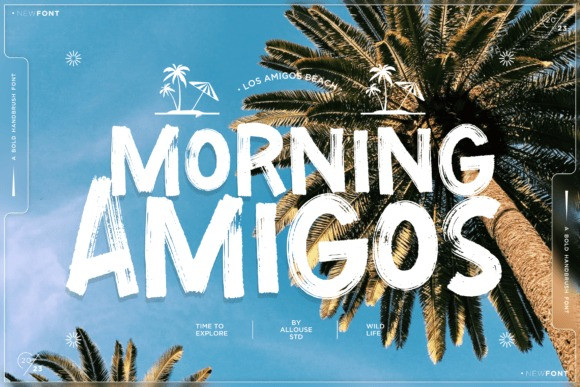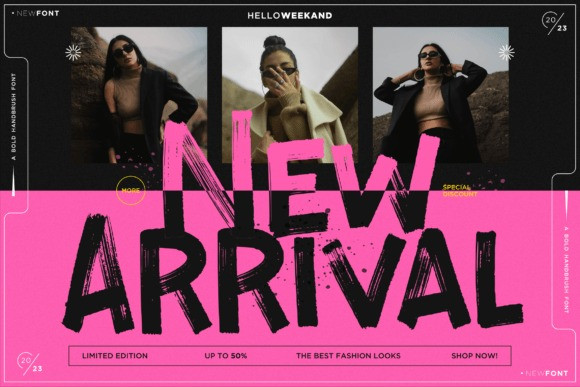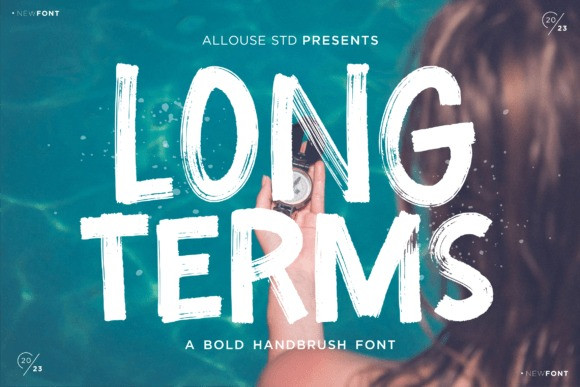
Longterms Font
Longterms Font – A Handbrushed Display Font. It is perfect for any titles, logo, product packaging, branding project, megazine, social media, wedding, or just used to express words above the background.
Longterms also come with Multi-Lingual Support.